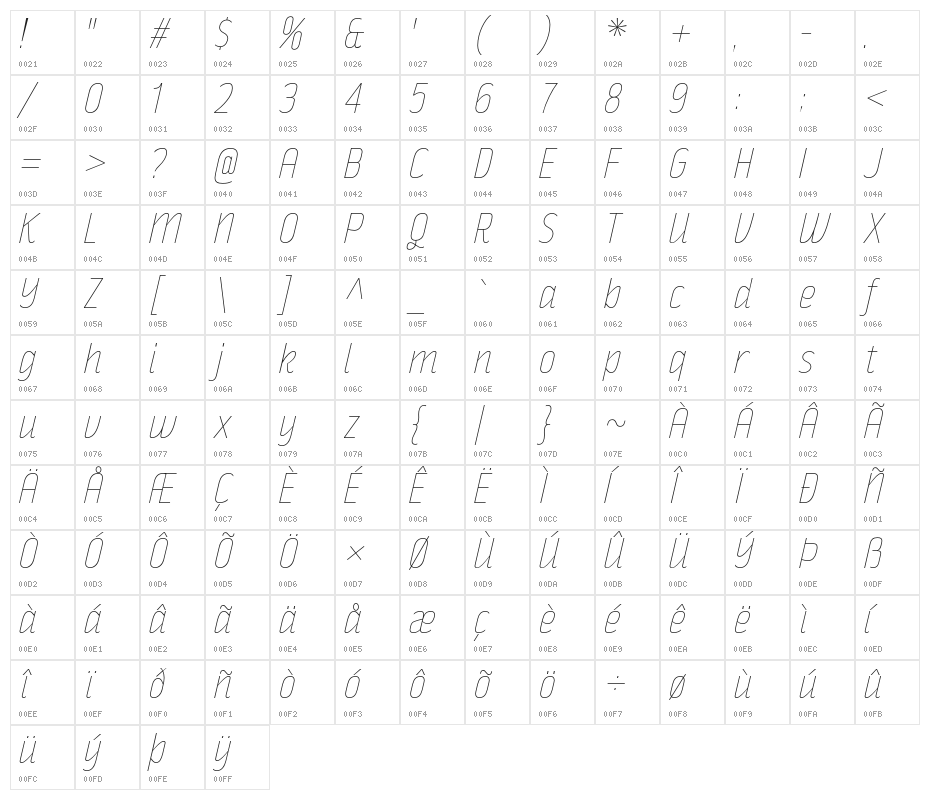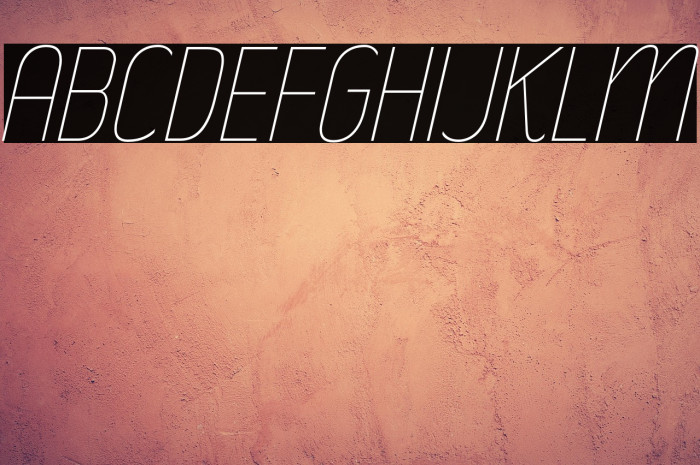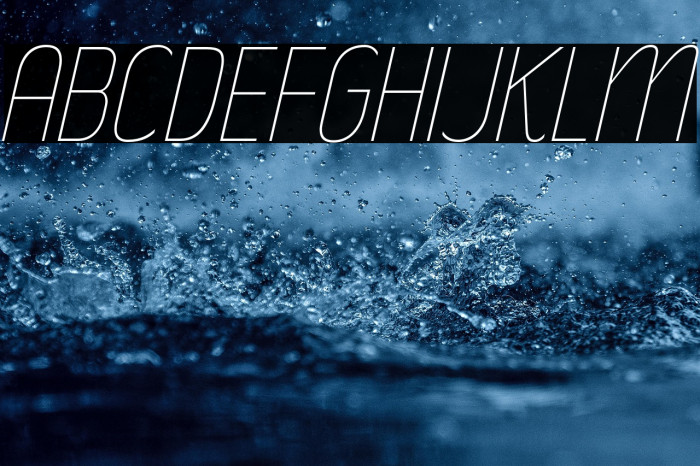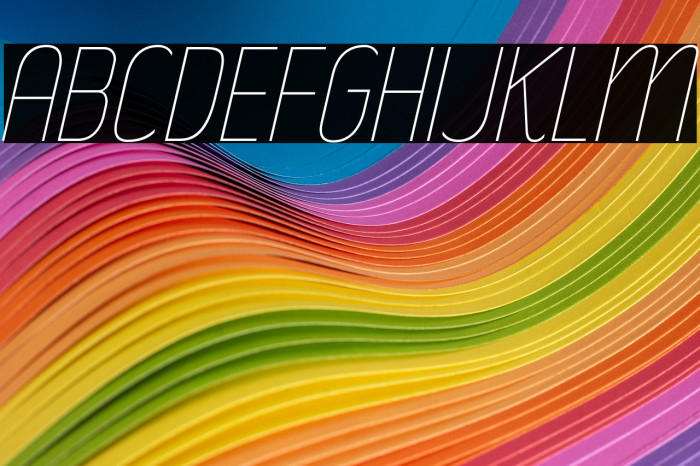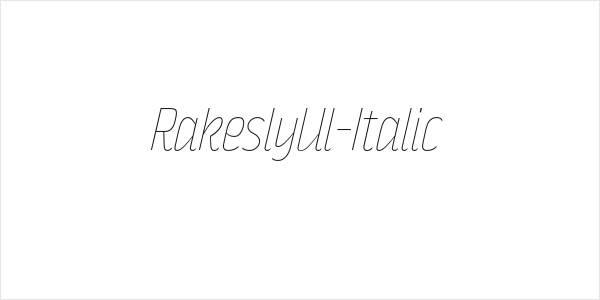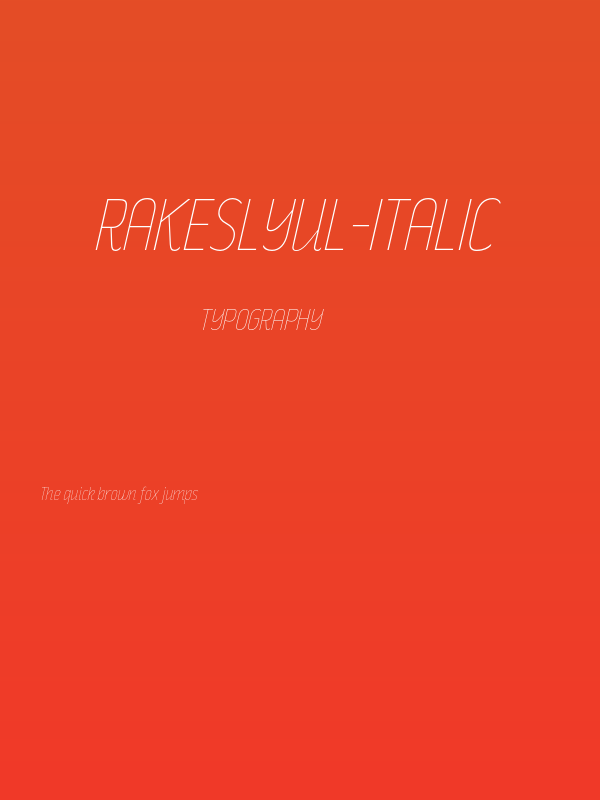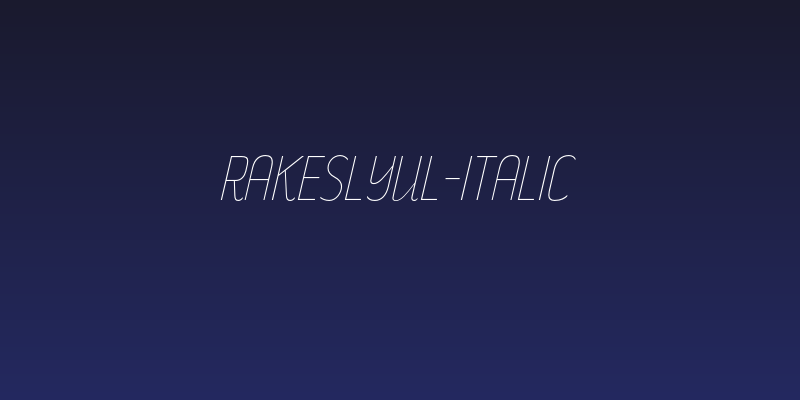
RakeslyUl-Italic Font
RakeslyUl-Italic Description
This font features an elegant and modern design with a sleek, italicized style. The characters are elongated and slightly condensed, giving a sophisticated and streamlined appearance. The strokes are thin and consistent, providing a clean and airy feel. The uppercase and lowercase letters maintain a harmonious balance, while the numerals and special characters integrate seamlessly into the overall design. The font's minimalistic approach makes it versatile for various applications, offering a contemporary yet timeless aesthetic.
| Proposed Projects | Ideal for fashion magazines, luxury branding, elegant invitations, and modern website headers. |